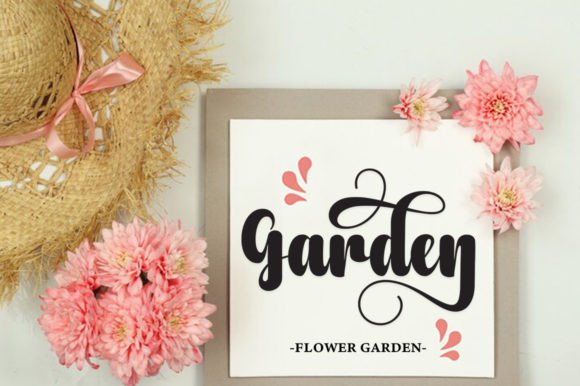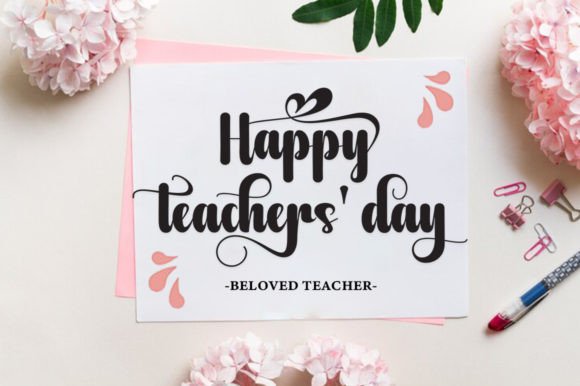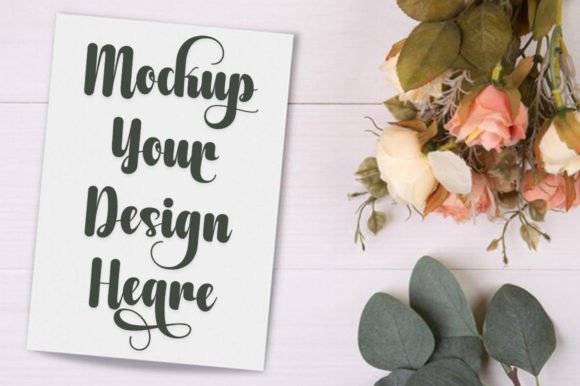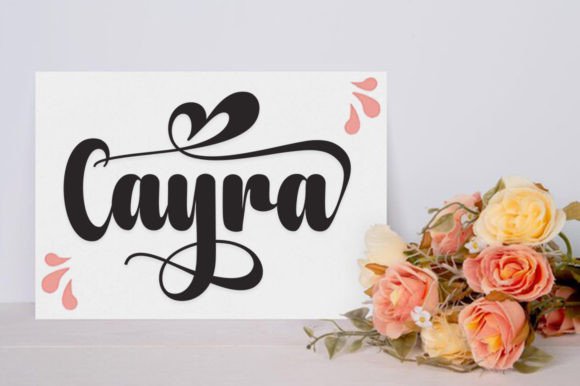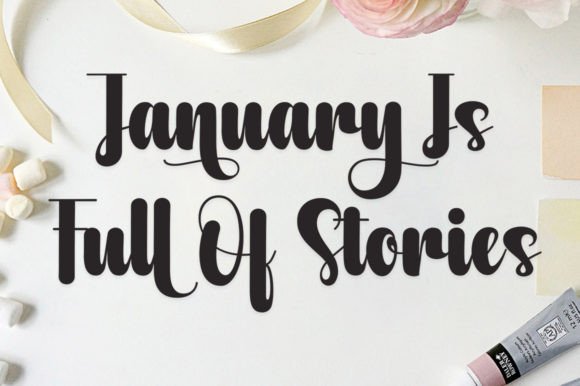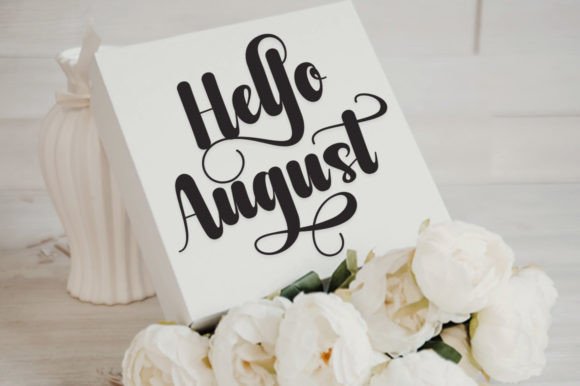
The Designer’s Delight: Uncovering the Charm of Gemoy Font
Have you ever been in the middle of a design project, and suddenly, you’re stuck on finding the perfect font? I recall a particularly frustrating experience while working on a wedding invitation design. My client wanted something elegant, yet modern, and I was determined to deliver. After hours of scrolling through font libraries, I stumbled upon Gemoy Font. It was love at first sight! 💕
Gemoy is a smooth, elegant, and flowing handwritten font that has captured my heart, and I’m sure it will do the same for you. Its radically different and timeless style makes it perfect for a wide range of projects, from wall displays to social media post logos, advertising, product packaging, and more.
What I Love About Gemoy Font
- ✨ Smooth and Elegant Lines: Gemoy’s flowing script is perfect for creating sophisticated designs that exude elegance.
- ✅ PUA Coded for Easy Access: The font is PUA coded, making it easy to access all the glyphs and swashes, which is a game-changer for designers.
- 💫 Timeless Style: Gemoy’s unique style is both modern and classic, making it suitable for a wide range of projects.
- 🎨 Versatile: From wedding invitations to product packaging, Gemoy can be used in various design applications.
While Gemoy Font is an excellent choice, there are a few things to keep in mind:
- ⚠️ Legibility at Small Sizes: Like many script fonts, Gemoy may not be legible at very small sizes. Make sure to test it at different sizes to ensure it works for your project.
- 🤔 Pairing with Other Fonts: As with any script font, pairing Gemoy with other fonts can be challenging. Experiment with different combinations to find the perfect match.
The Designer Inspiration Behind Gemoy Font
While the true story behind Gemoy Font’s creation remains a mystery, it’s easy to imagine a designer who wanted to create a font that would bring a touch of elegance and sophistication to any design project. Perhaps a designer who loves calligraphy and handwriting, and wanted to bottle up the essence of these art forms into a digital font.
Q: What is PUA coding, and how does it benefit designers?
A: PUA (Private Use Area) coding allows designers to access a wide range of glyphs and swashes, making it easier to create unique and customized designs.